How To Choose Best Fonts for Brand
Minimalist design is more than empty space
It’s about clarity, balance, and intentional choices.
And fonts play a massive role in how clean or cluttered your brand looks.
Whether you’re building a skincare brand, launching a modern tech product, or starting a lifestyle blog—here are the best fonts to keep your brand aesthetic, timeless, and minimal.
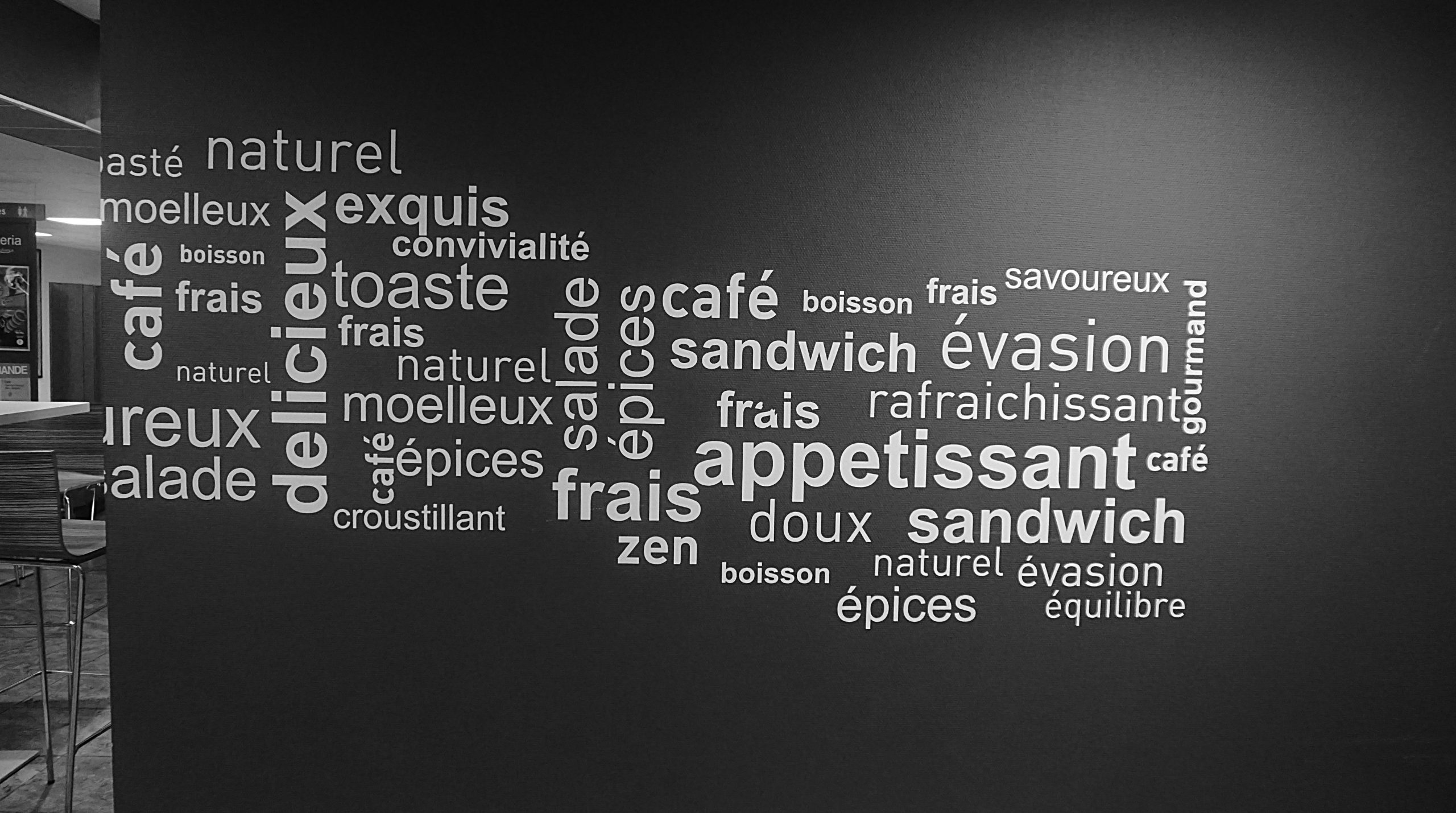
✨ What Makes a Font “Minimalist”?
• Simple forms (no unnecessary flourishes)
• Good spacing and clean edges
• Versatile across platforms (web, print, social)
• Neutral but stylish personality
🔟 Best Fonts for Minimalist Branding (Curated)
1. Inter
• Ultra-legible
• Great for UI/UX, tech products, and mobile apps
• Free & highly flexible
2. Artiveko’s “Attort”
• Clean geometry + subtle elegance
• Great for fashion & luxury branding
3. Suisse Int’l
• Swiss-style sans serif
• Balanced weight for digital + print
• Trusted by many modern agencies
4. Helvetica Neue
• The OG minimalist font
• Perfect for sleek, serious brands
• Can feel too “default” if not styled right
5. Artiveko’s “Tinday”
• Light, refined, and calming
• Works perfectly for skincare, health, and wellness brands
6. Avenir
• Timeless & friendly
• Ideal for branding that’s clean but not cold
7. Canela
• High-end modern serif
• Gives minimalist luxury vibes (perfect for editorial/fashion)
8. Artiveko’s “Buttely”
• Minimal but warm
• Balanced contrast for elegant branding
9. Maison Neue
• Calm, serious, and highly versatile
• Often used in museum, architecture, and editorial designs
🔟 Poppins (Light/Regular)
• Popular, simple, and geometric
• Pairs well with bolder display fonts
🧠 Tips for Using Fonts in Minimalist Branding
• ✨ Use white space to let fonts breathe
• Limit to 1–2 fonts max
• Go easy on effects (no shadows, outlines, etc.)
• Let font weight do the visual work